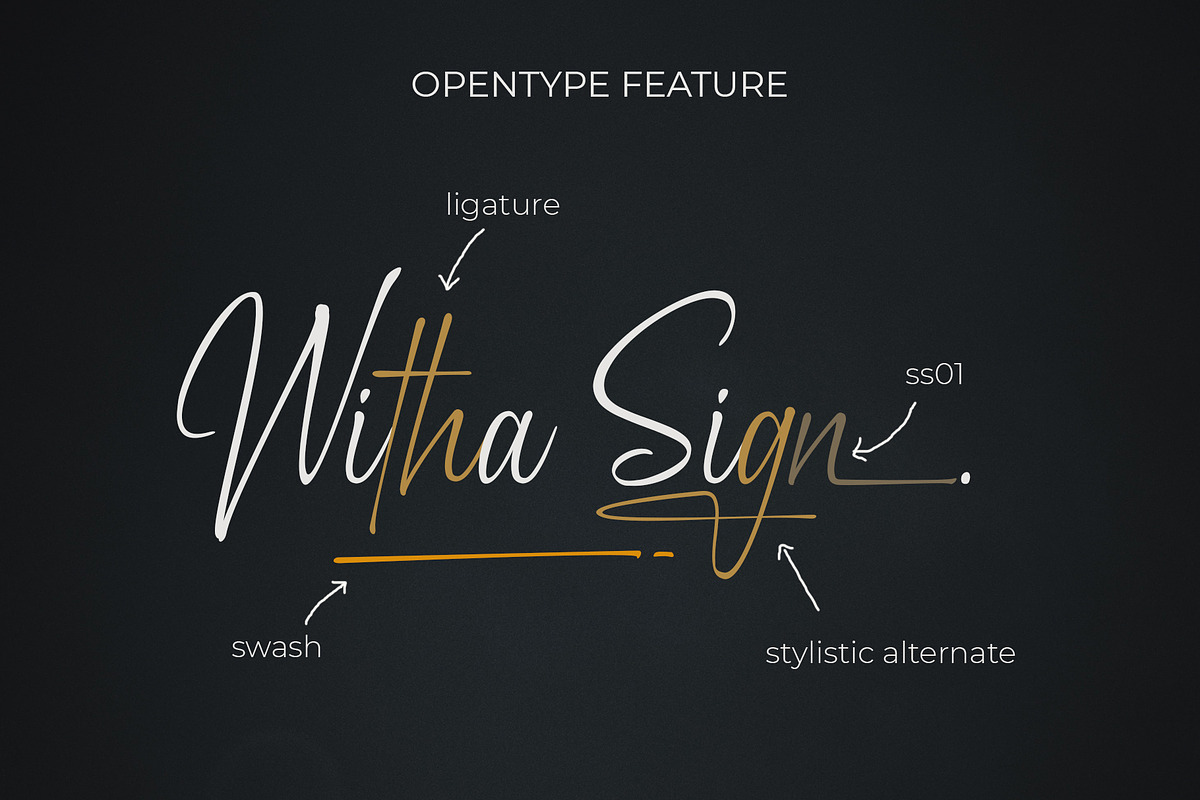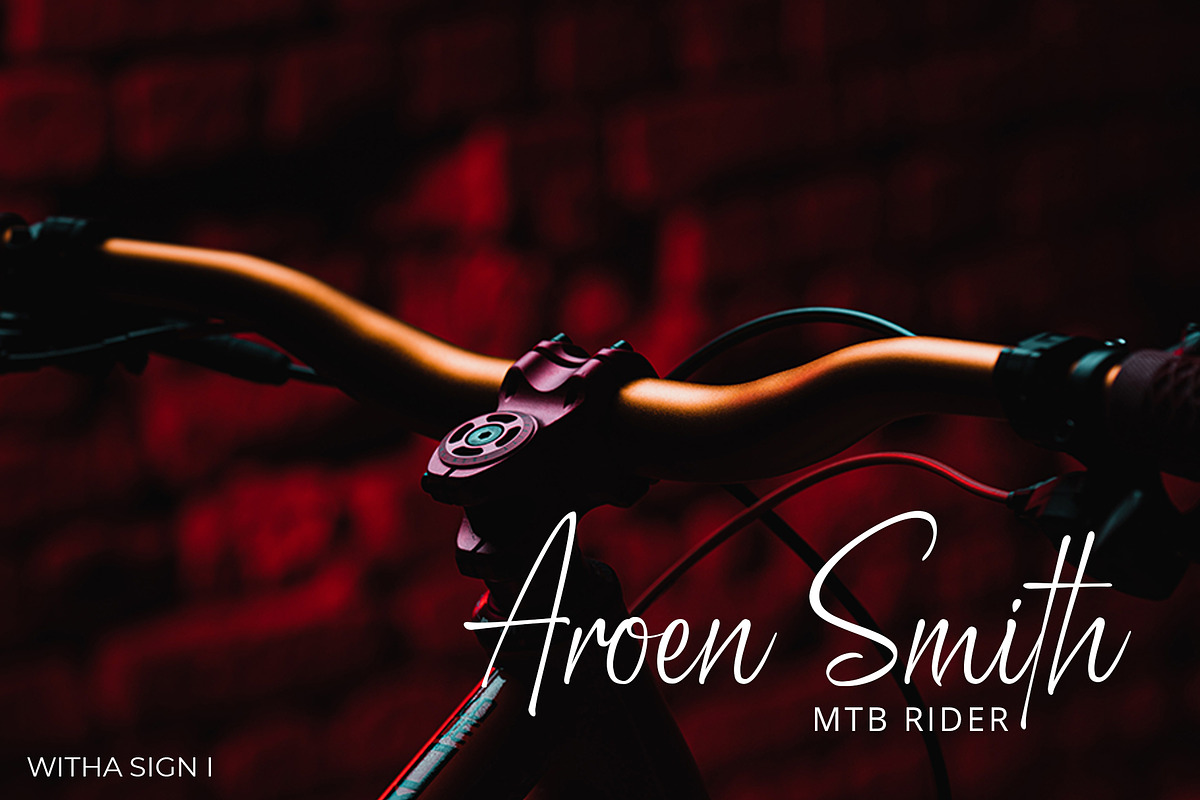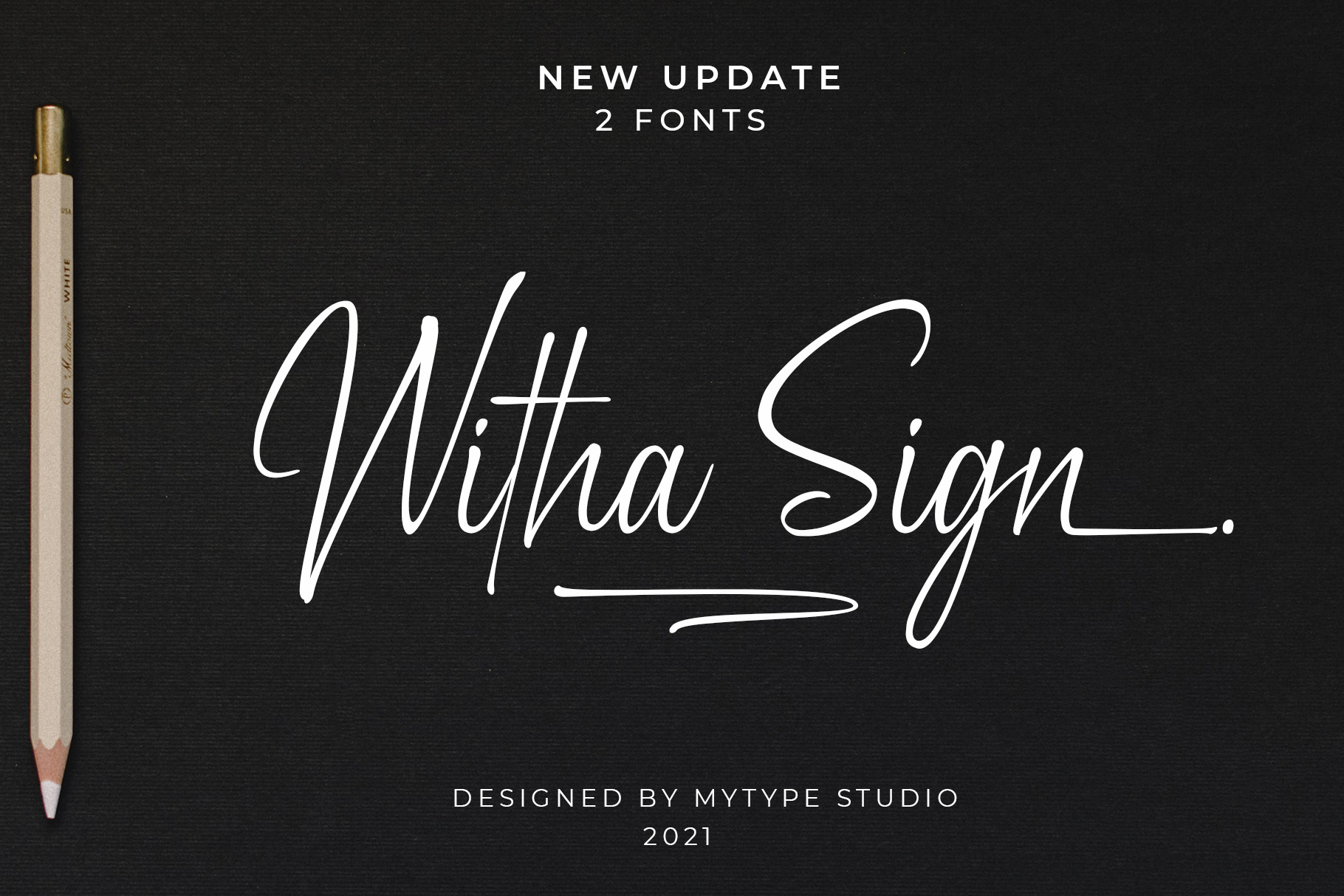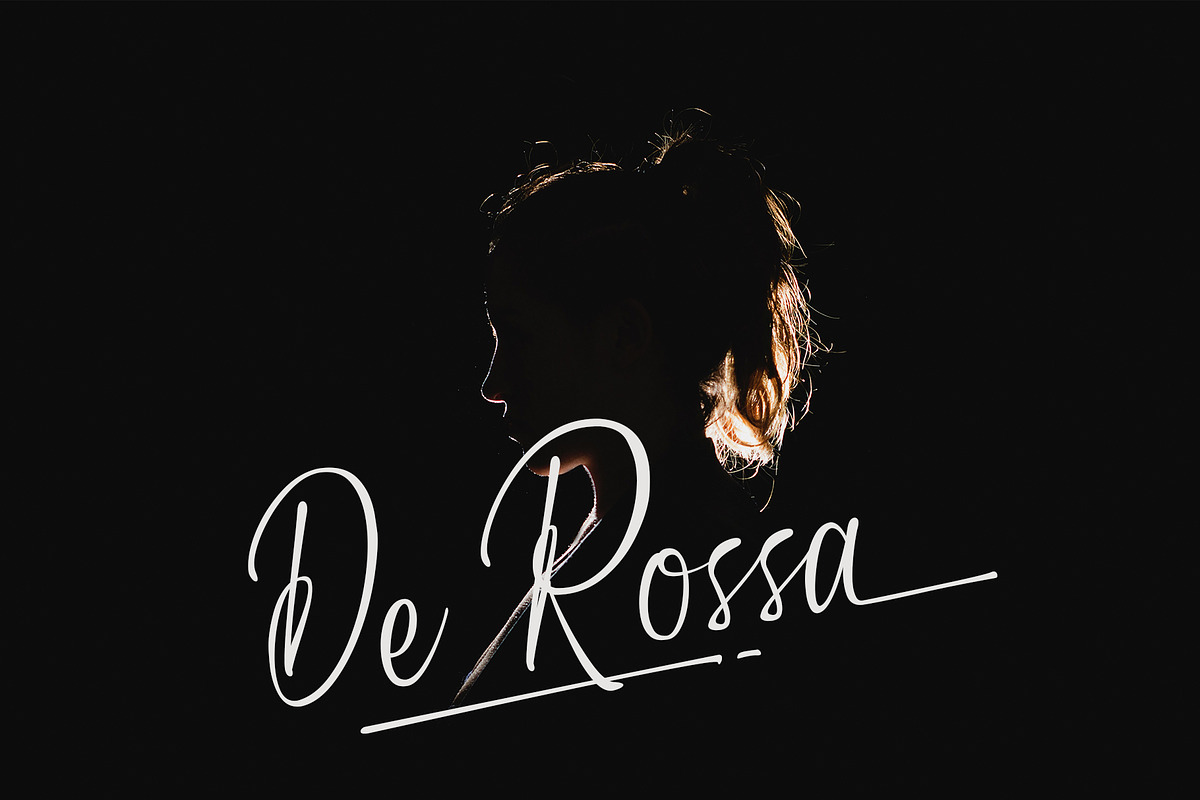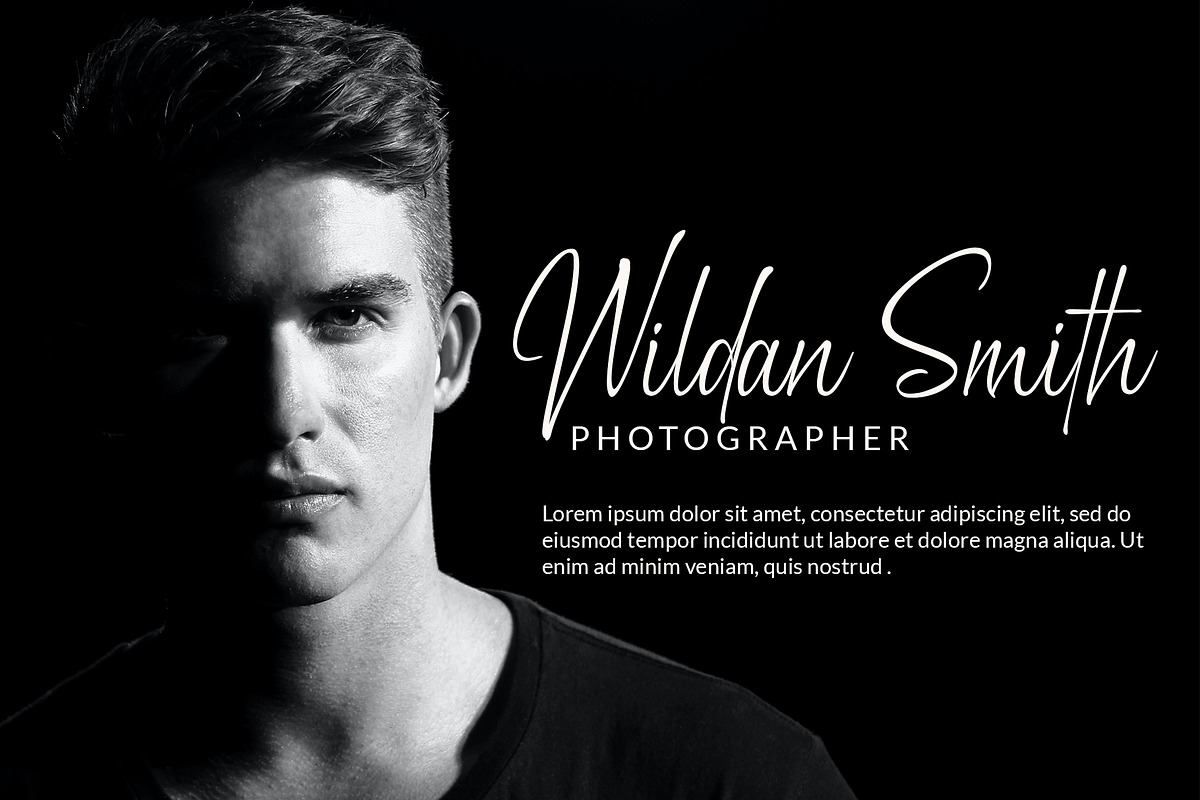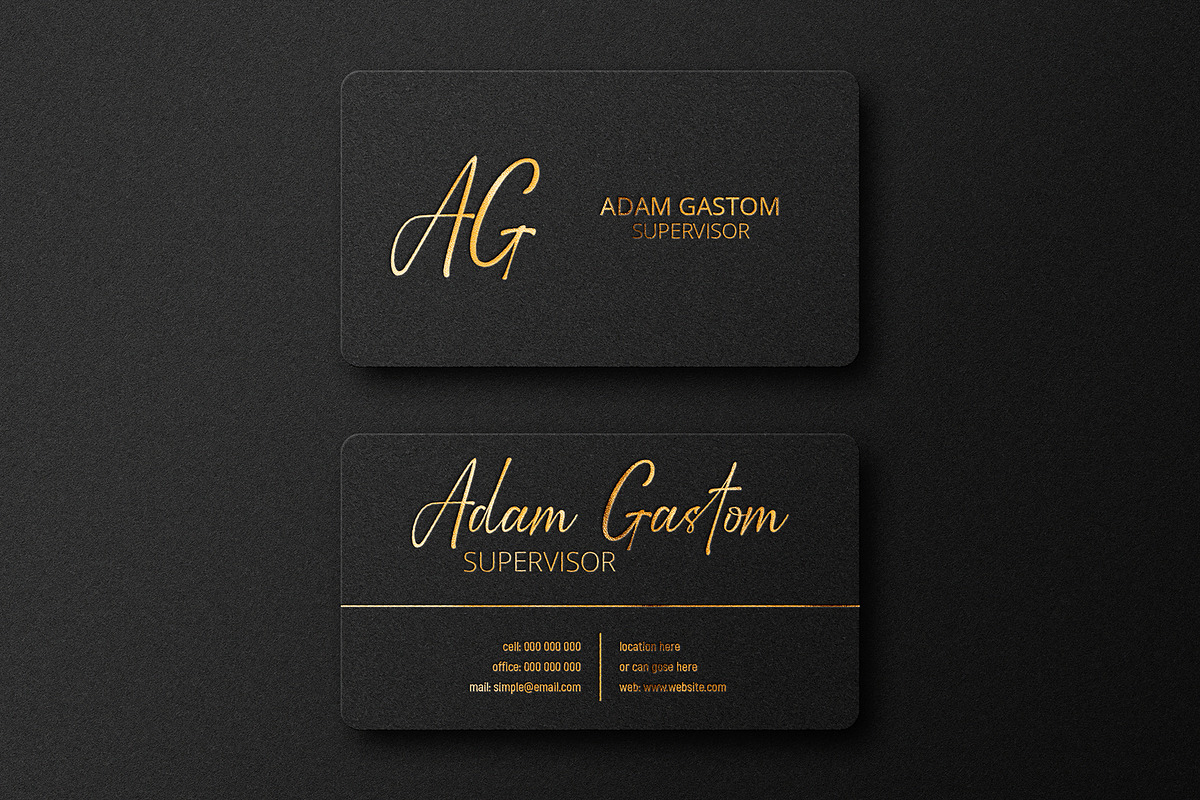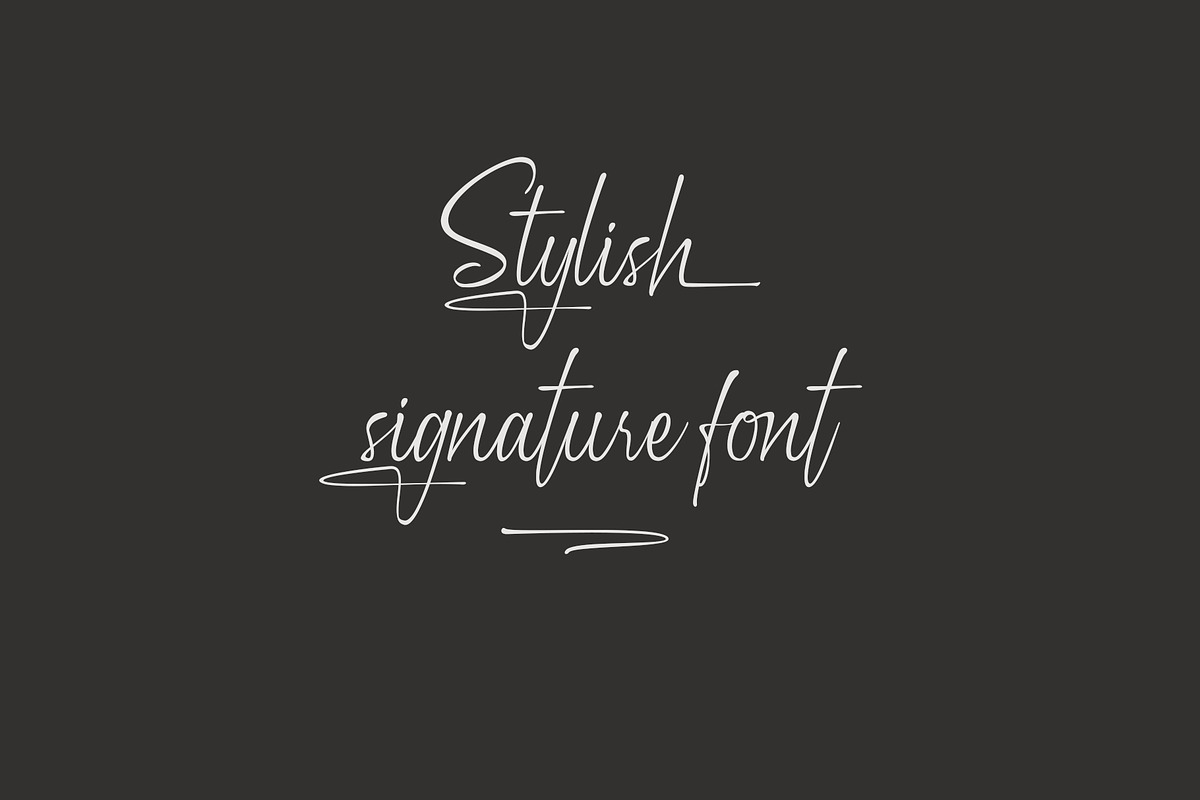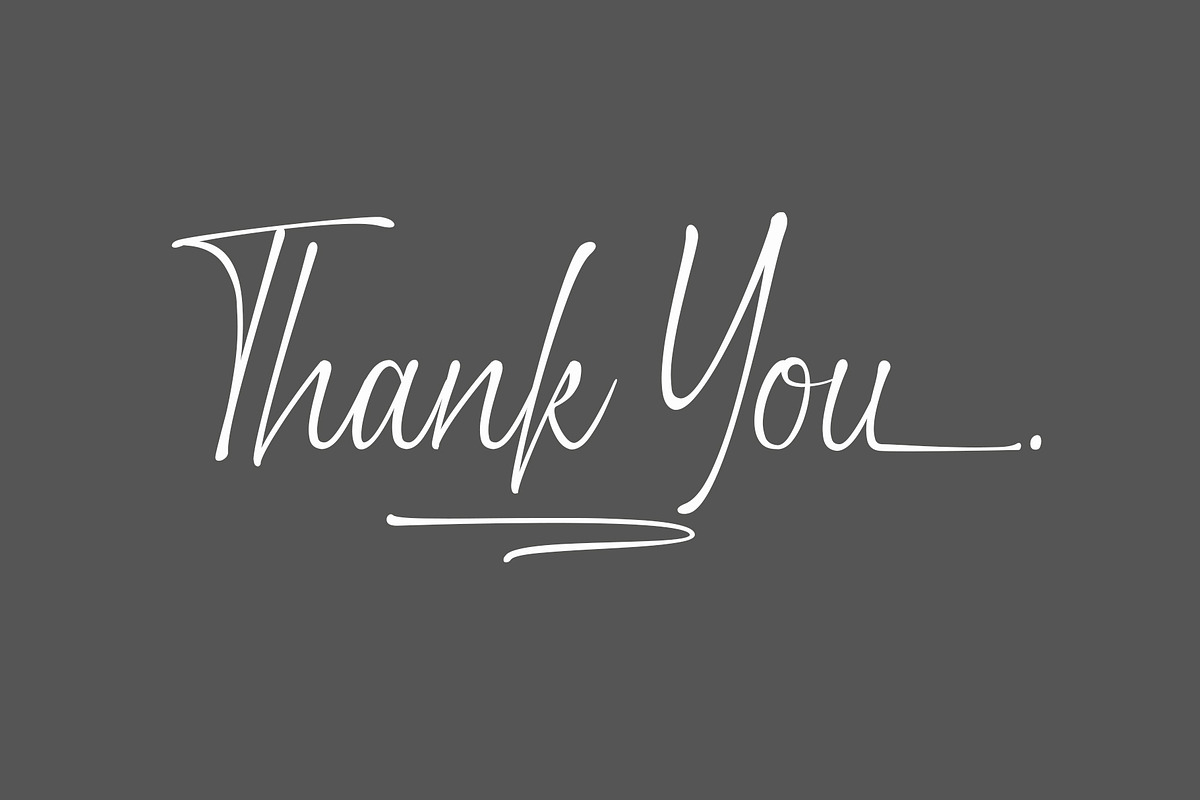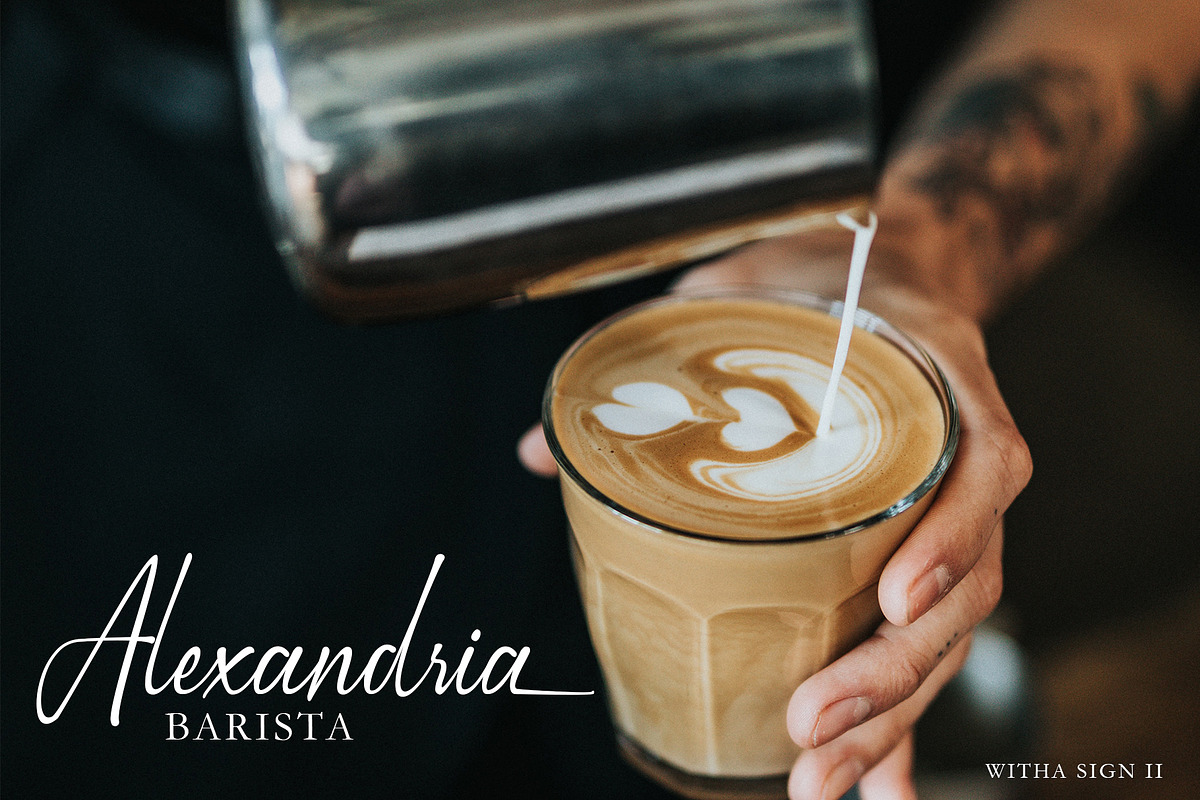
Witha Sign | 2 Style Signature Font
NEW UPDATE : we add one new font, so now Witha Sign 2 Fonts Style. Available only in Creative Market
Witha Sign is a perfect signature font, with a natural & stylish flow. Witha Sign Font is perfect for many different project such as logos & branding, invitation, stationery, wedding designs, social media posts, advertisements, product packaging, product designs, label, photography, special events or anything.